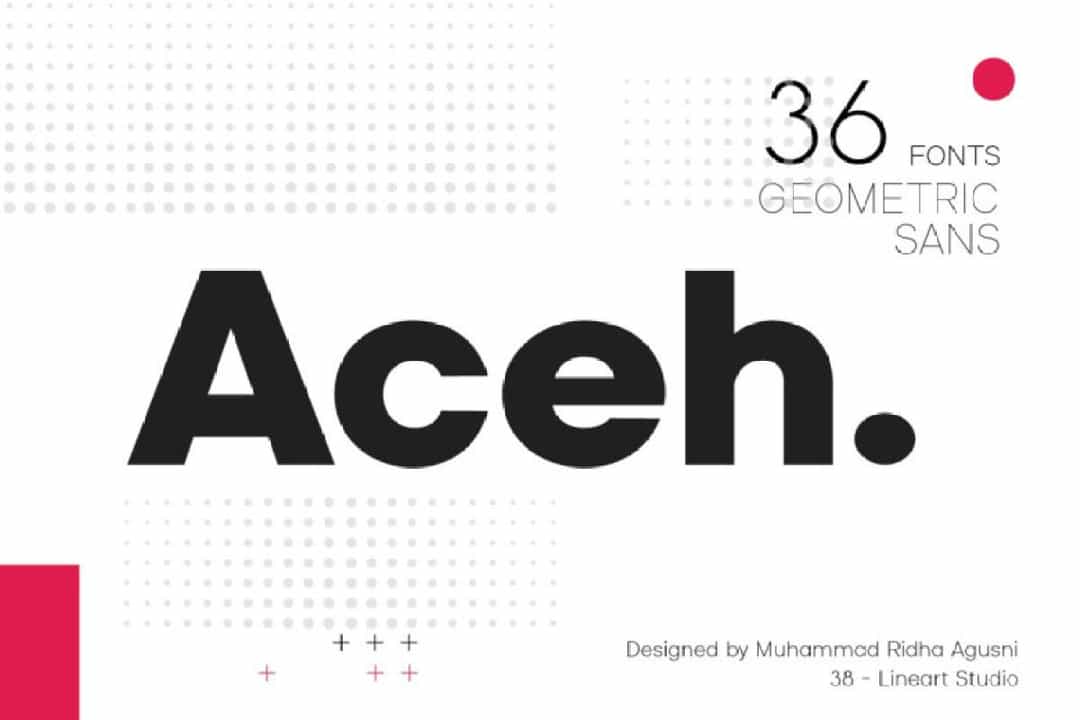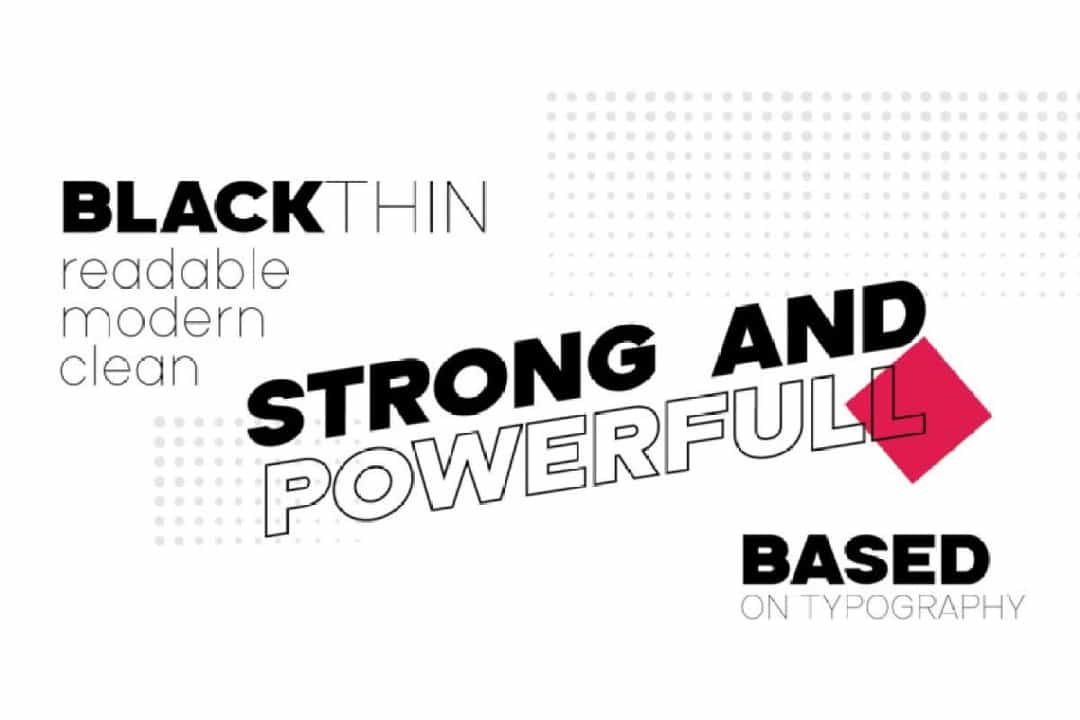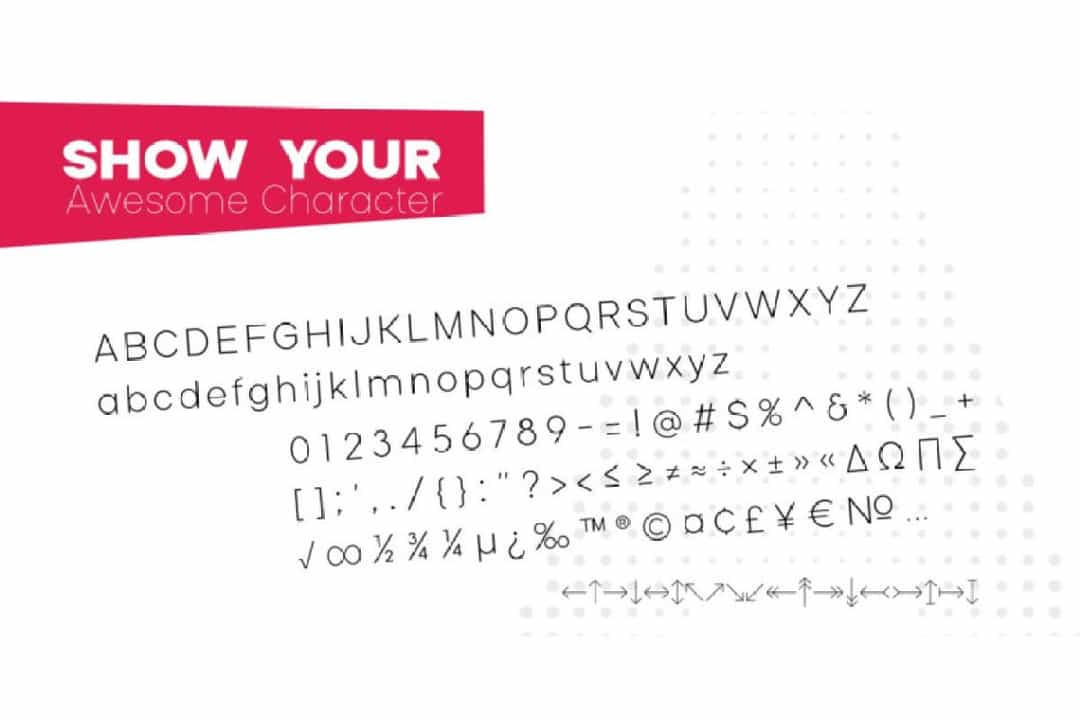
Aceh is a geometric sans serif font with form and style in the upright-oblique format. Aceh comes with nine weights and Black is the most powerful and robust while Thin is delicate and minimalistic. Aceh was also meant to be used as a font in text as well as to symbolize an energetic lifestyle via the use of branding.